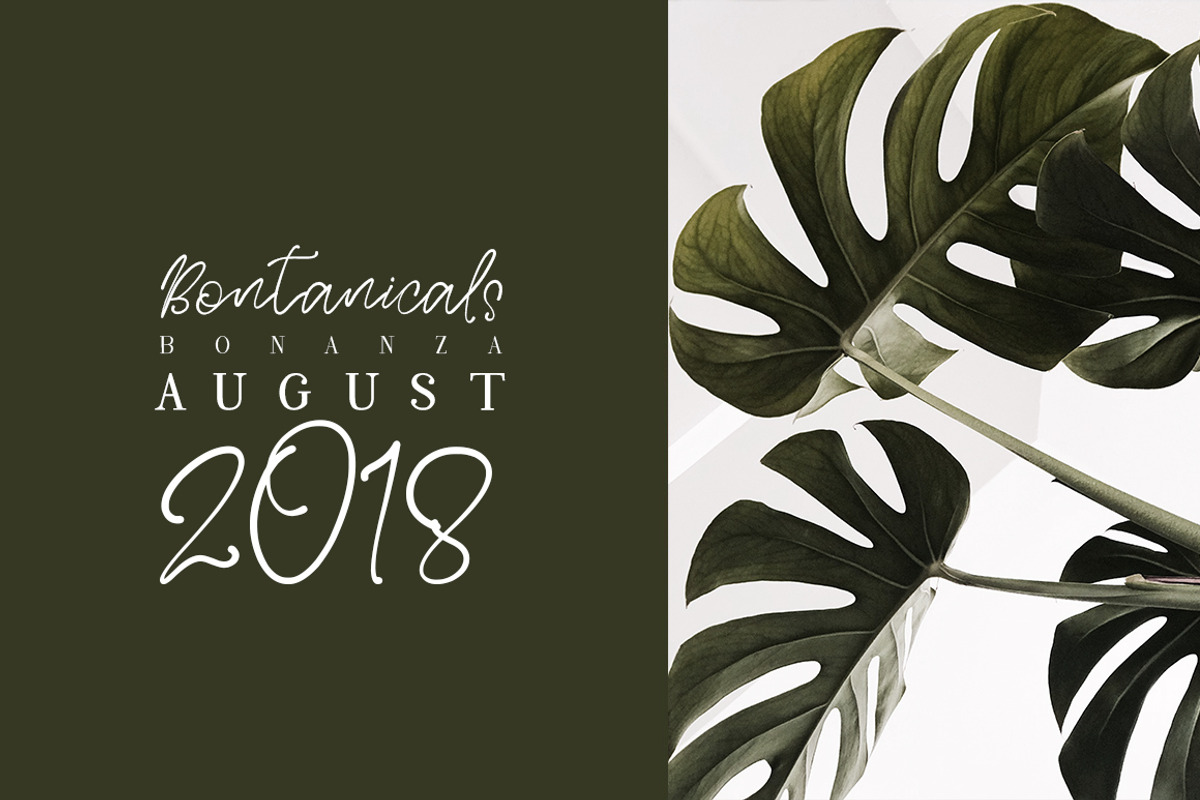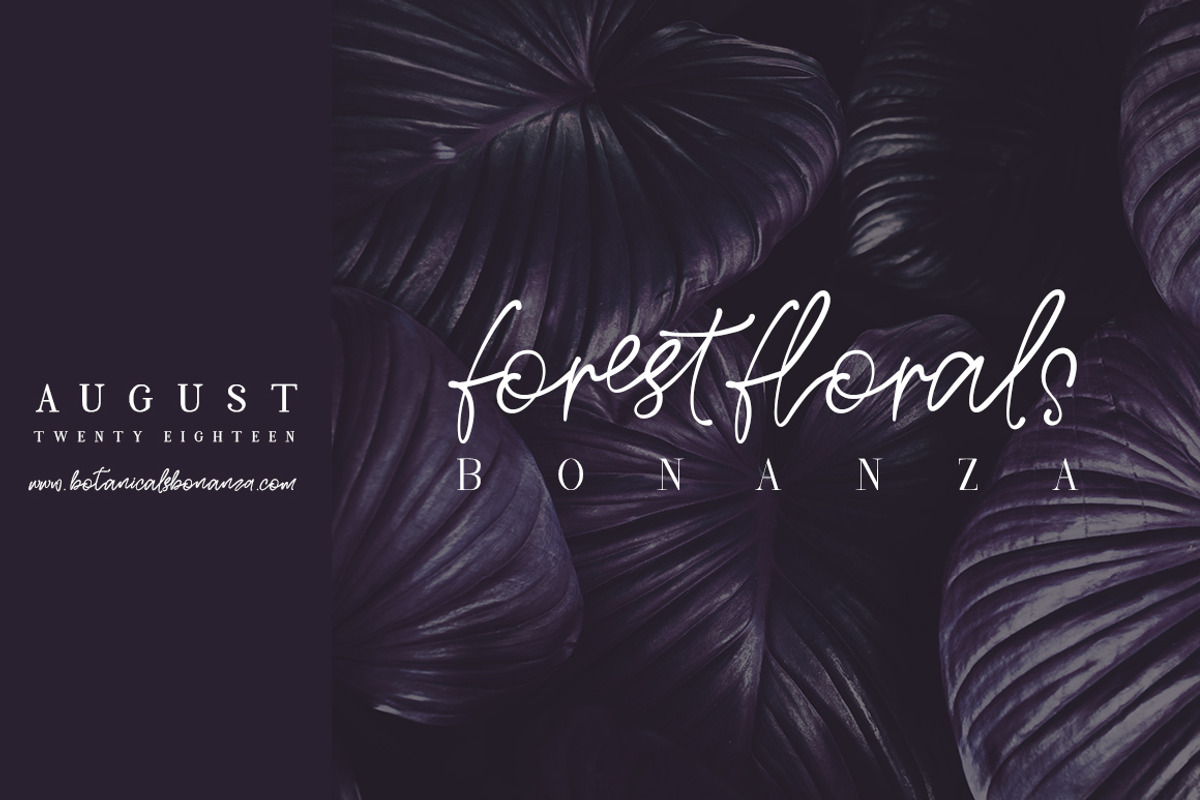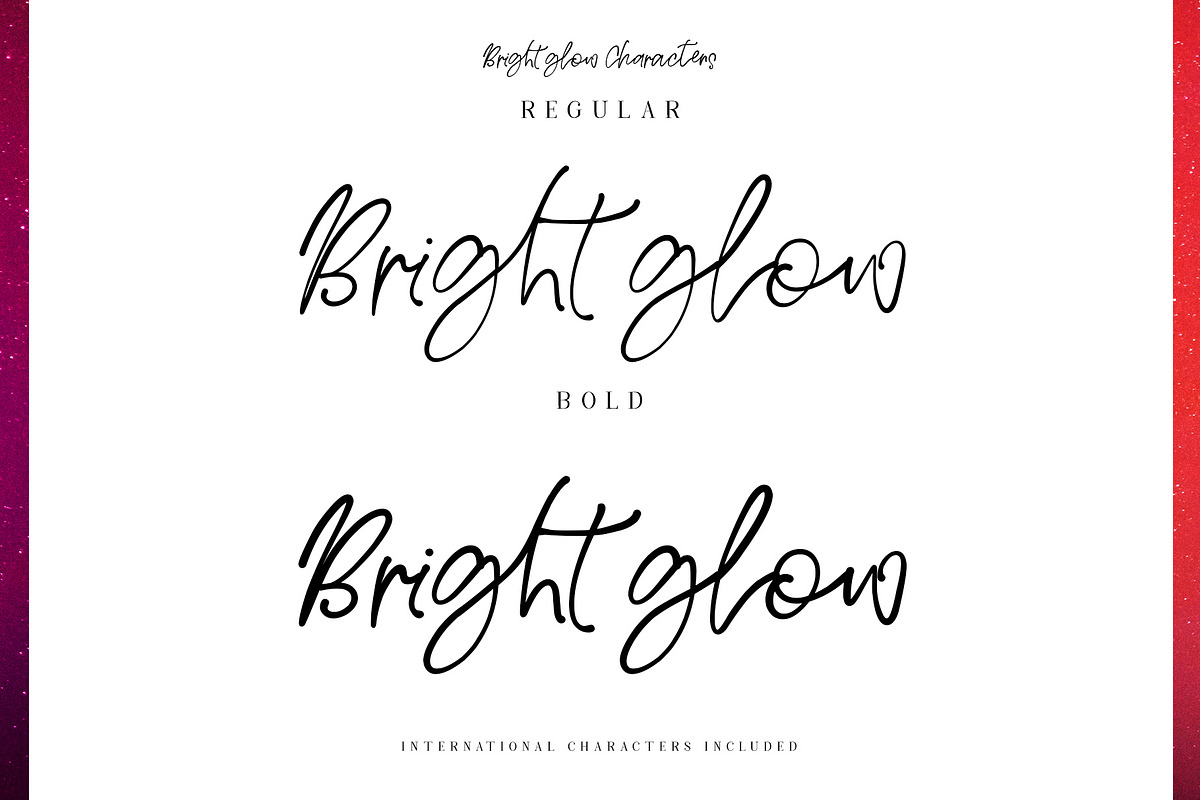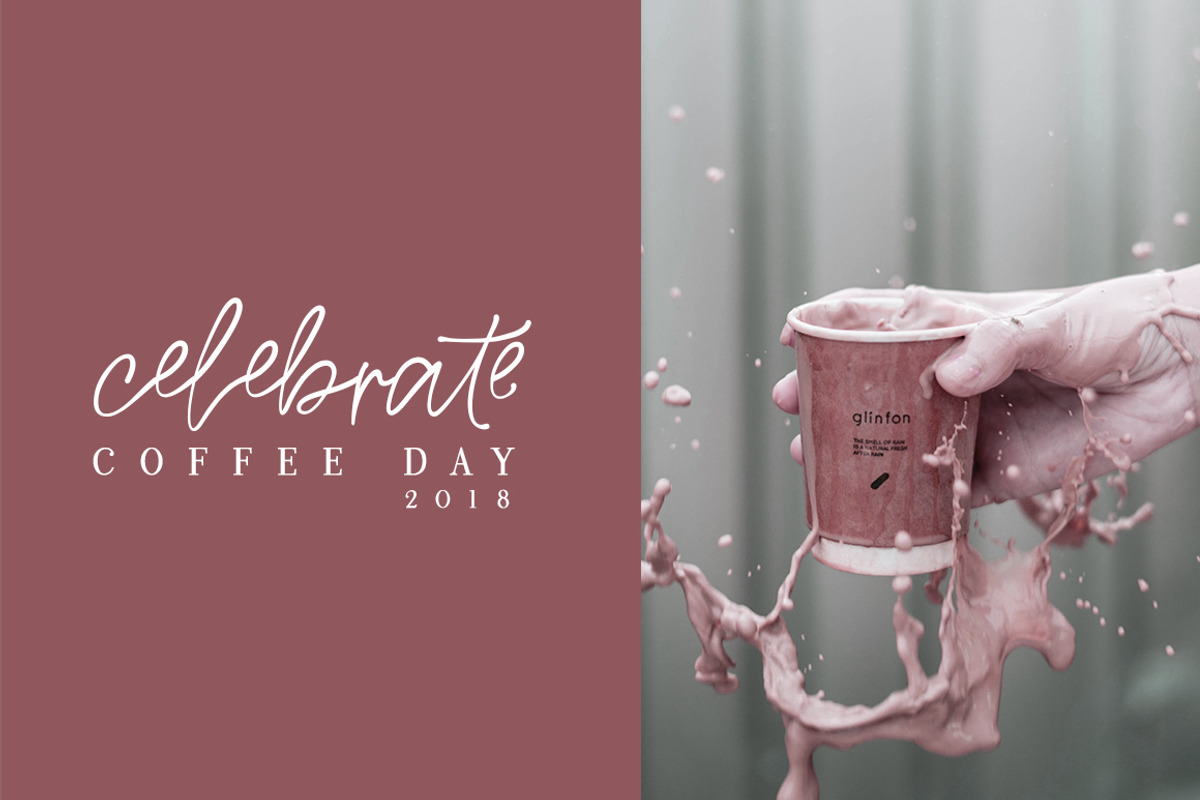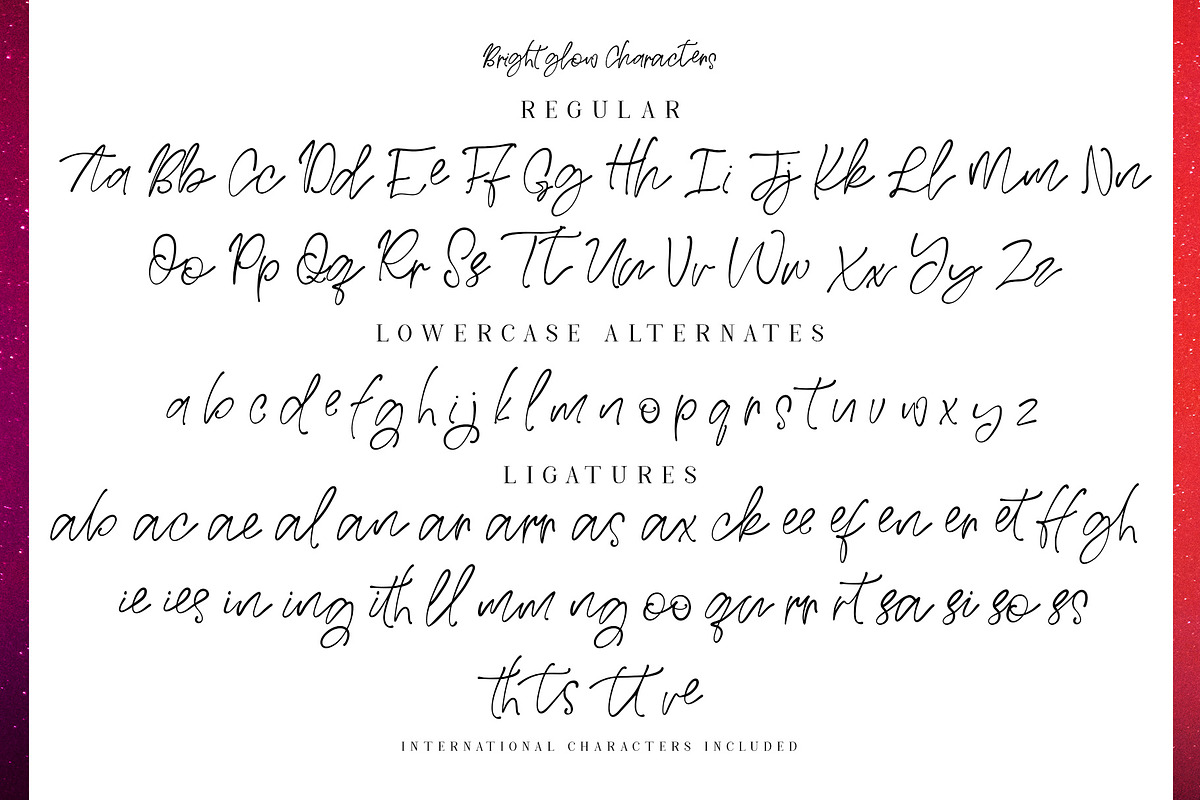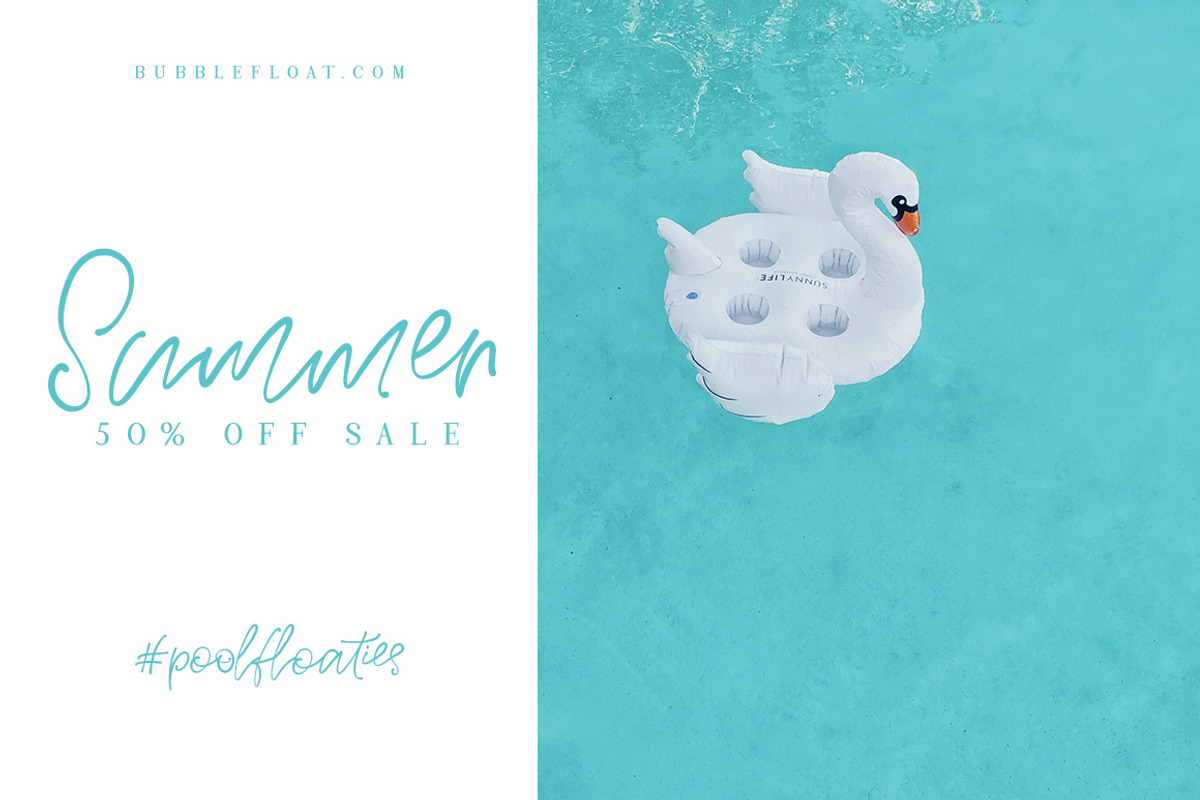
Bright Glow Script Font
Introducing Bright Glow Script font!
This cute happy little number is bright and bouncy - such a friendly little font. Although it's not actually so little - in fact it includes a full set of lowercase alternates - PLUS 37 extra ligatures to create that authentic hand written look!
- All numbers and symbols are included and international language is supported.
Why Bright Glow Script Font is worth a look
Bright Glow Script Font by Creativeqube Design fits naturally into Branding, posters, packaging, typography.